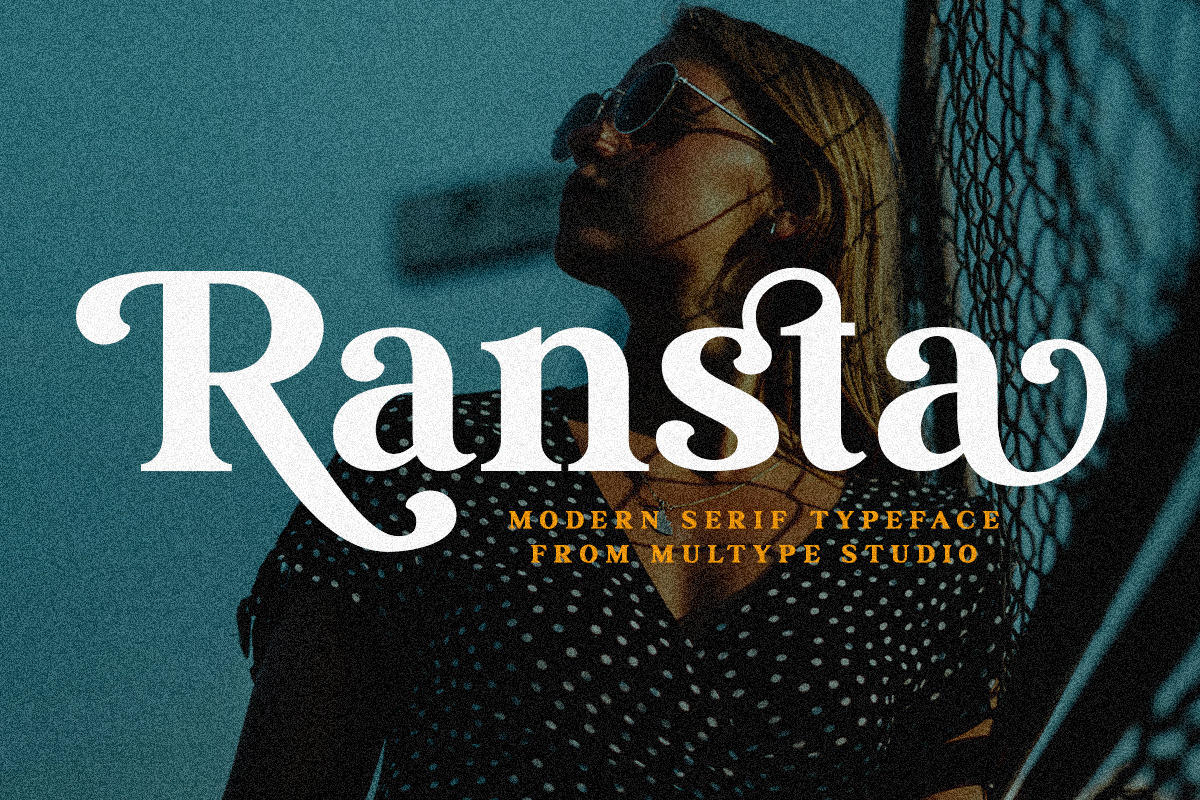
Ransta Modern Serif Font
Ransta is a chic,classy, and modern serif font with many alternates character to access in OpenType features. This font is perfect for branding, logos, social media, advertisements, product packaging, watermark, invitation, stationery, tshirt, prints, posters and more.
- Stylistic Alternate